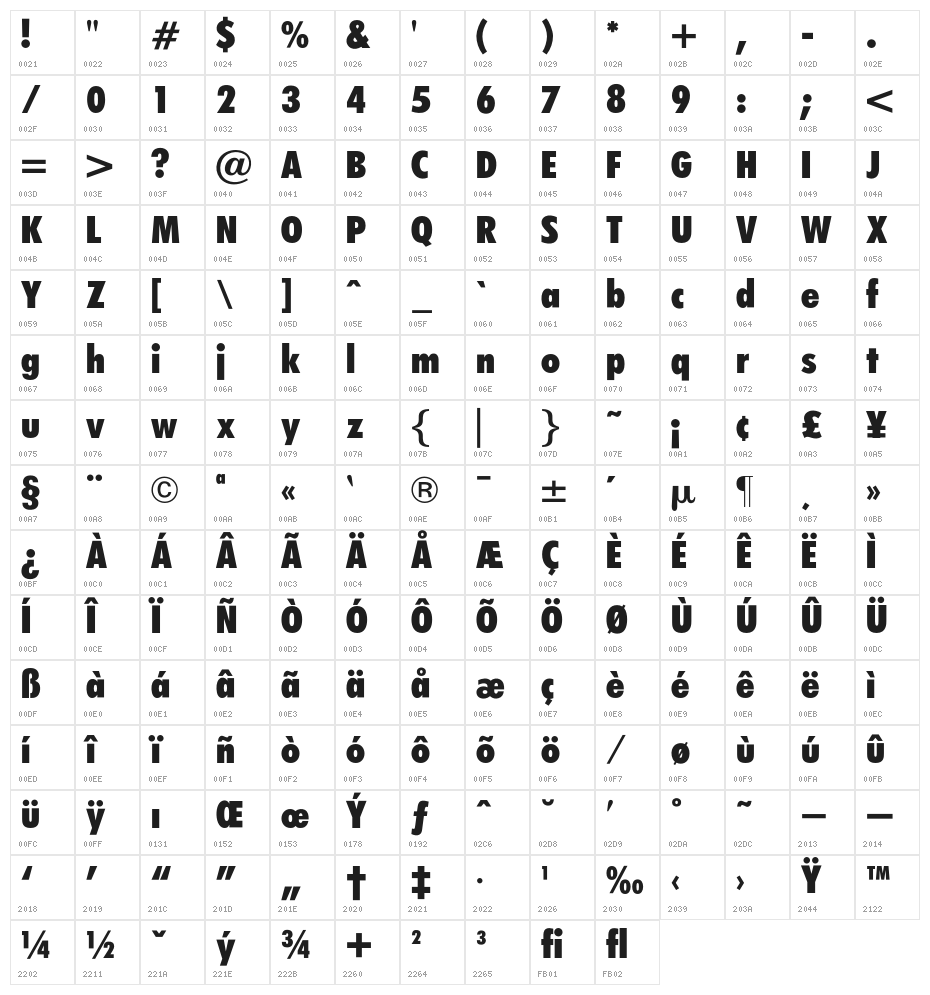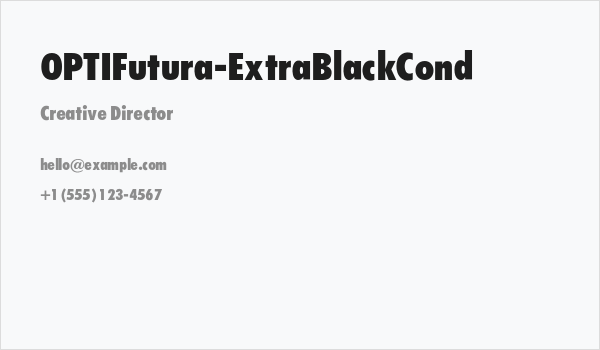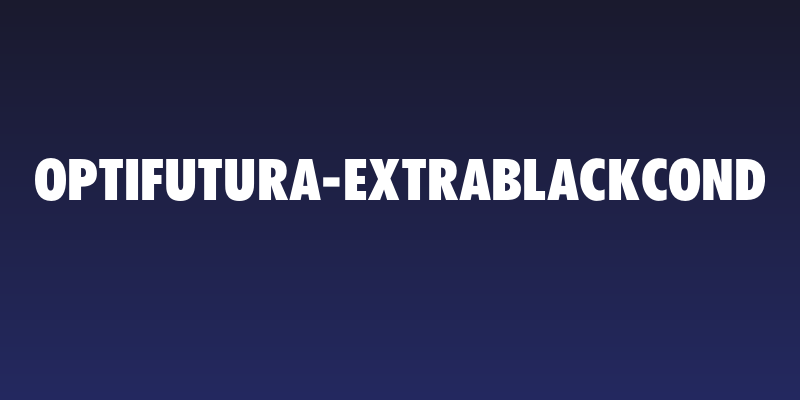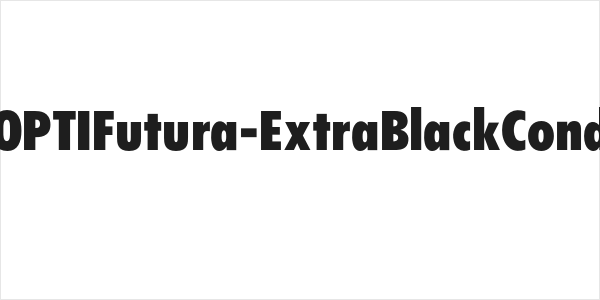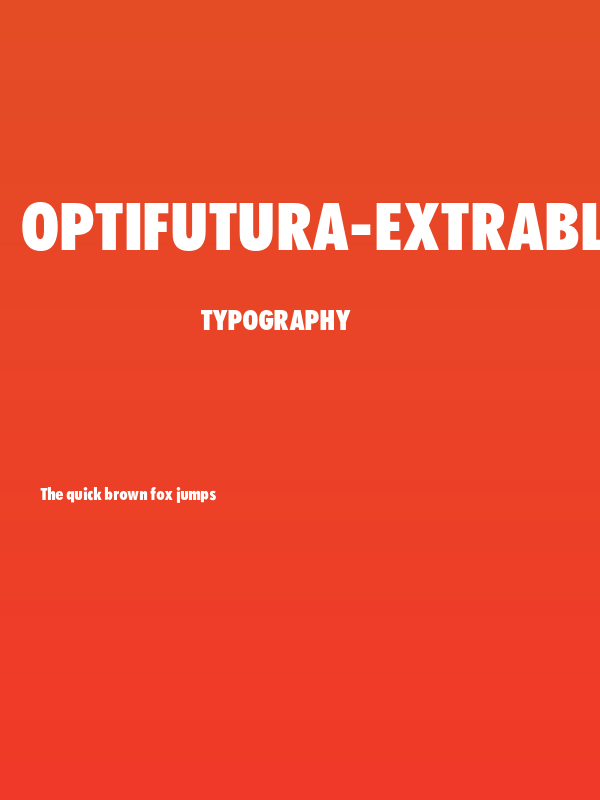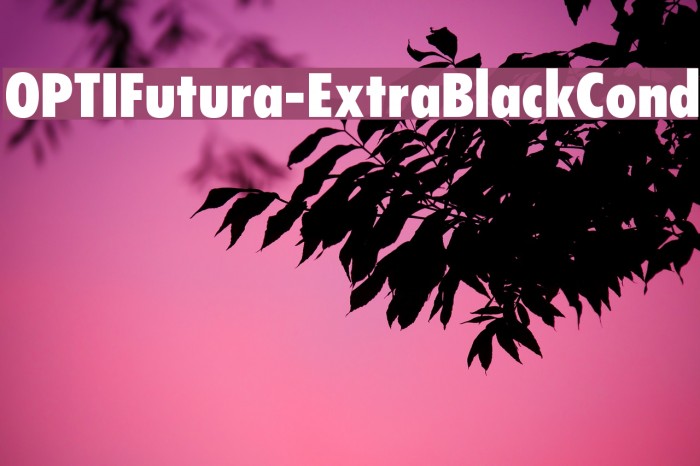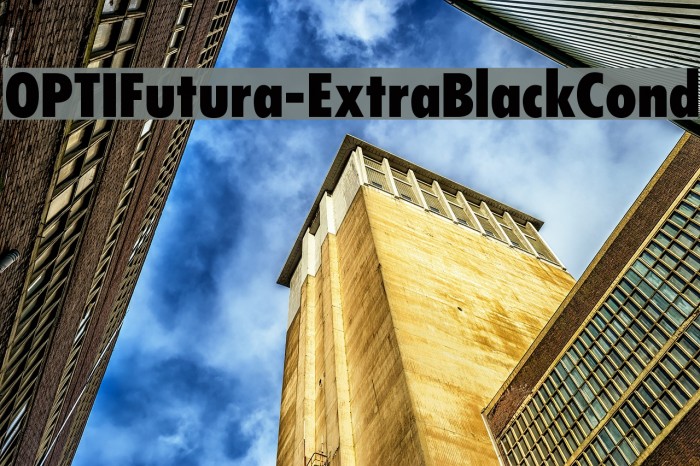
OPTIFutura-ExtraBlackCond Font
| Projets proposés | This font is perfect for branding projects, poster designs, and any application requiring a strong visual impact. It can be used effectively in advertising, packaging, and digital media where boldness is key. |